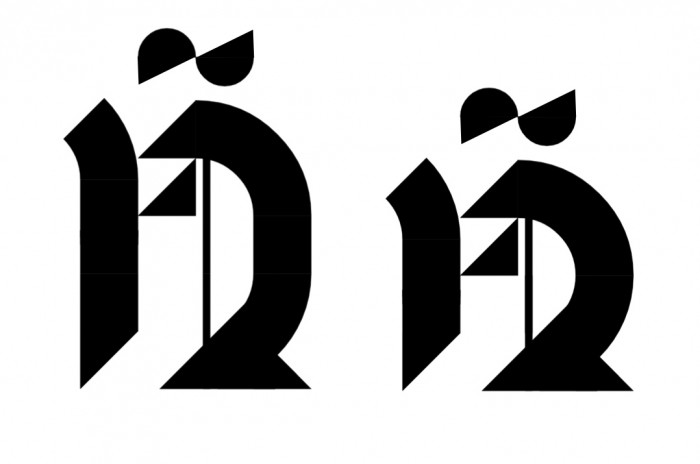
What do you think about this tilde?
I've tried a "Minotur" inspired work as well, but mine turned out to be pointless, as I was unable to bring much new to the table... this on the other hand is simply top notch refreshement!